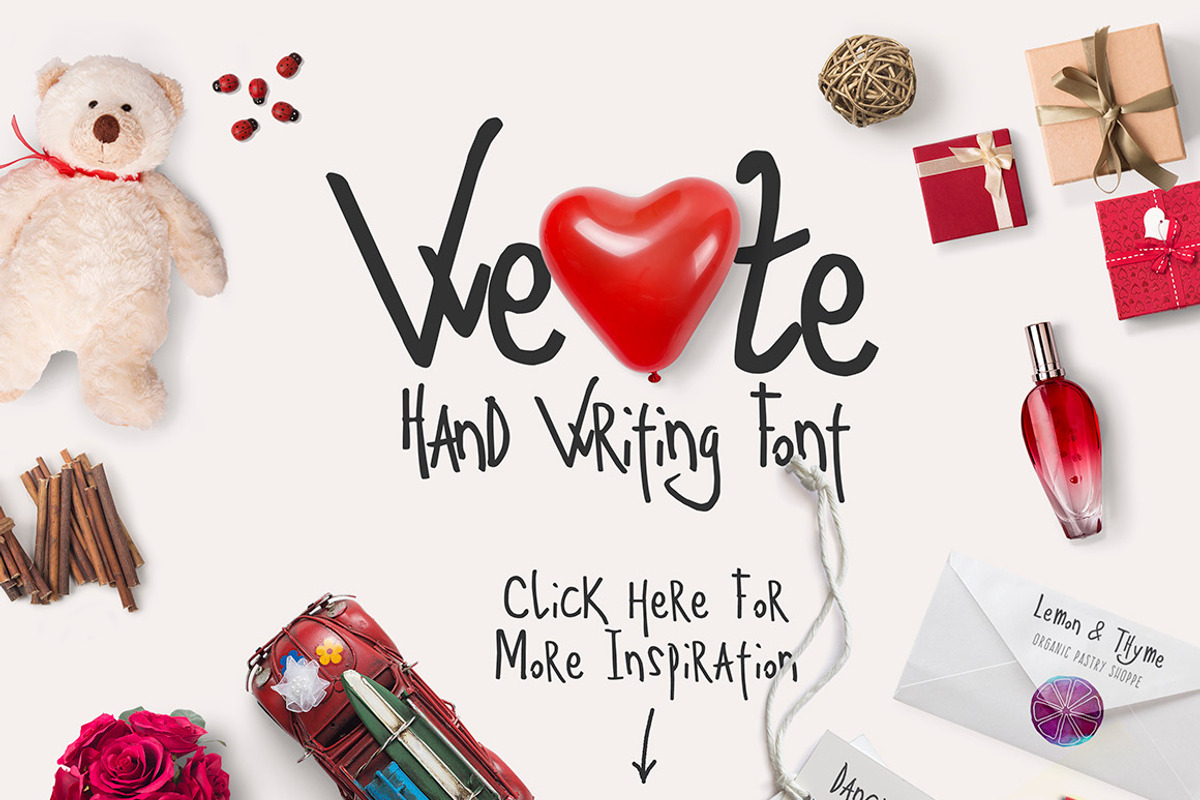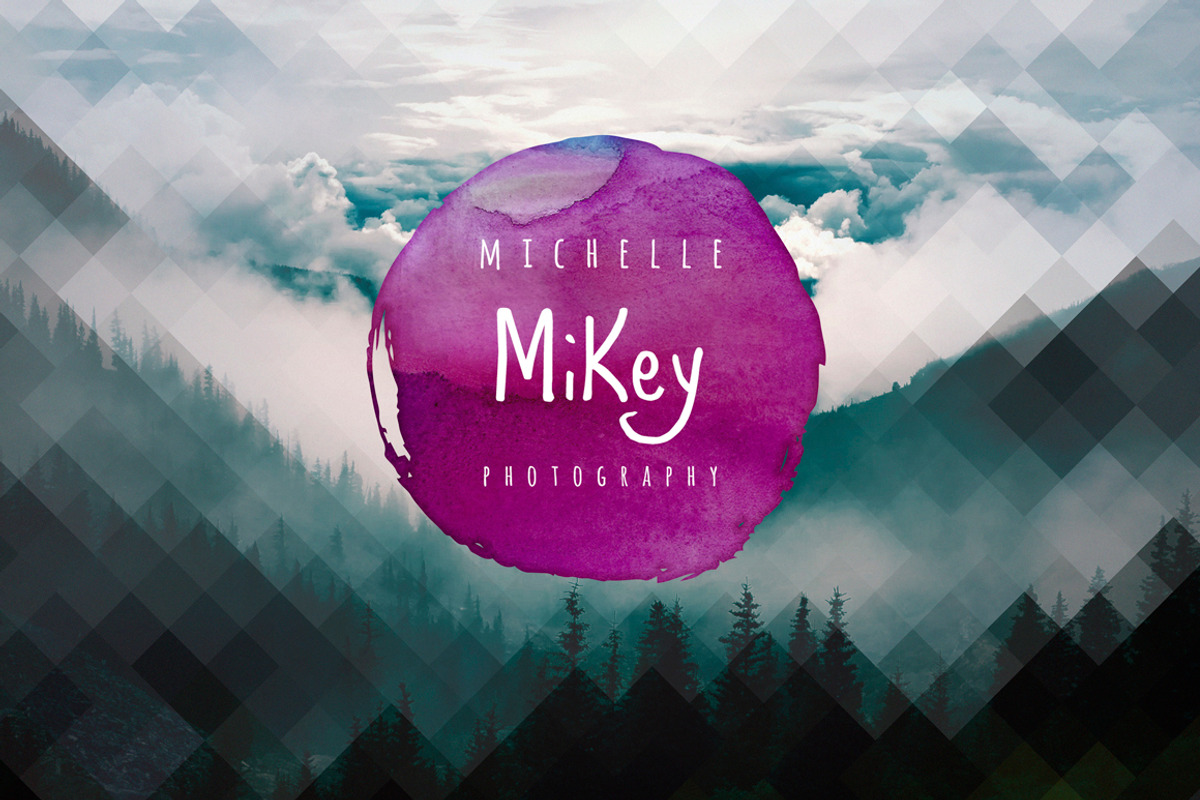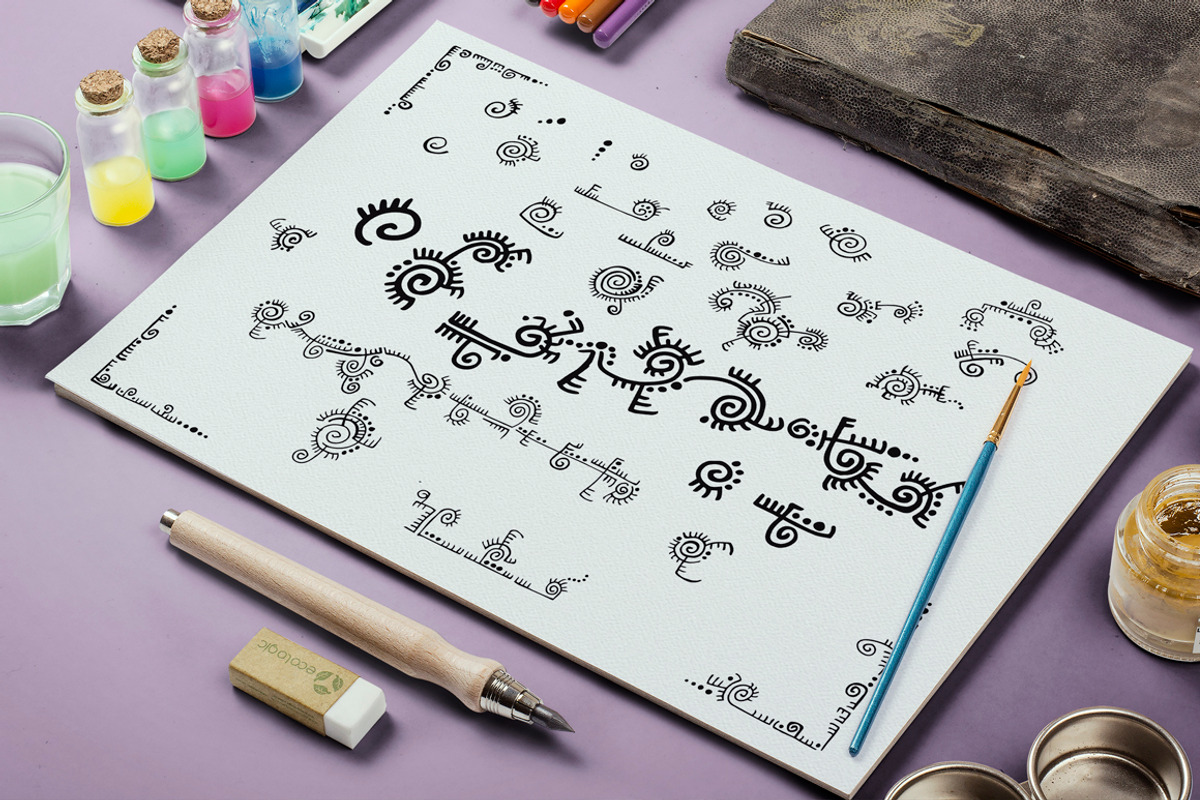
Ze Typeface + Extras
Ze Typeface + Extras by SmartDesigns is a font selected for branding, posters, packaging, typography.
Why Ze Typeface + Extras is worth a look
Ze Typeface + Extras by SmartDesigns fits naturally into Branding, posters, packaging, typography.